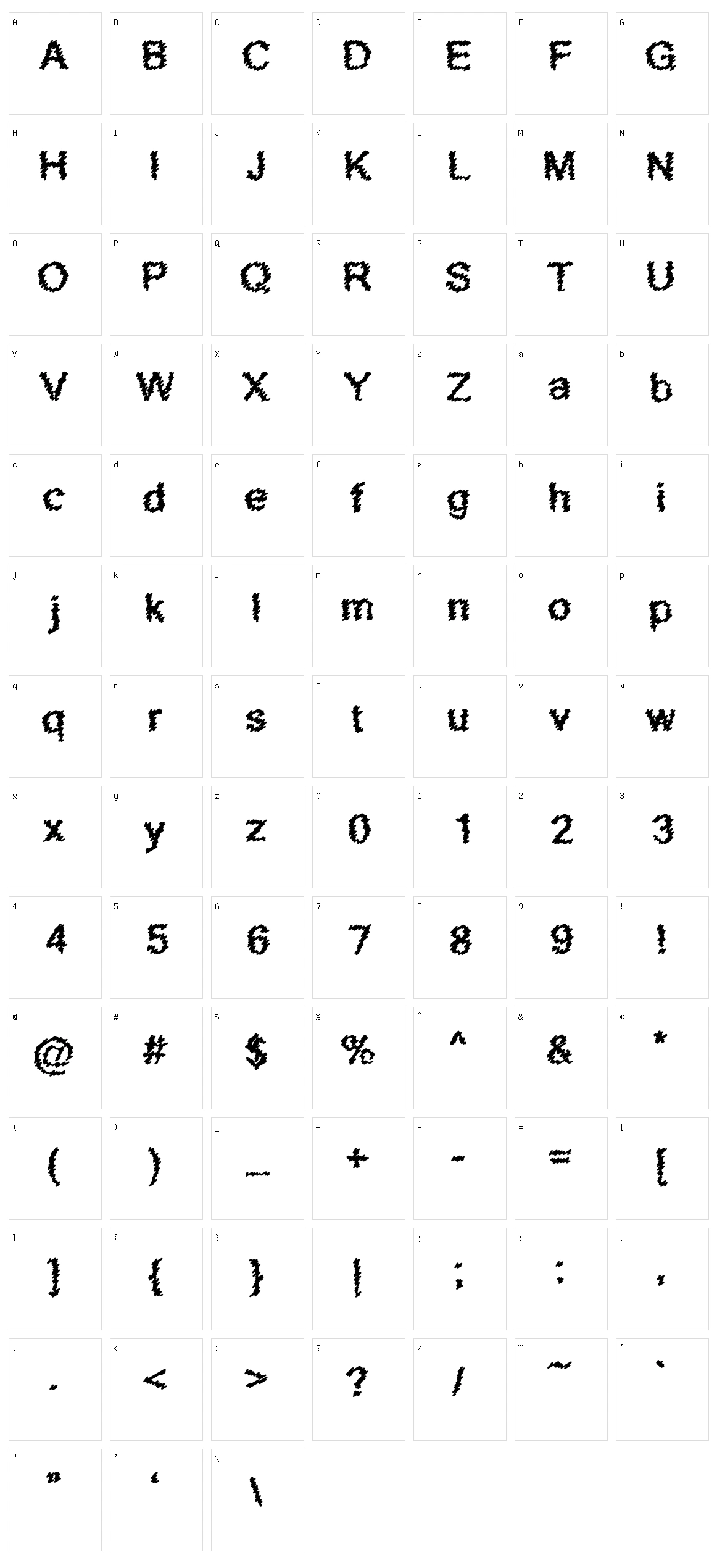
The free font Scribbled is carefully designed by Adrian Candela, showcasing a thoughtful balance of creativity and usability and falls under the Distorted font style. When you download the ZIP file, it contains only 101.91 KB of font files, making it lightweight and quick to download. Please review the license details below to understand permitted usage and distribution rights. If license information is not available, we recommend using this font for personal projects only or contacting the author directly for commercial usage permissions.